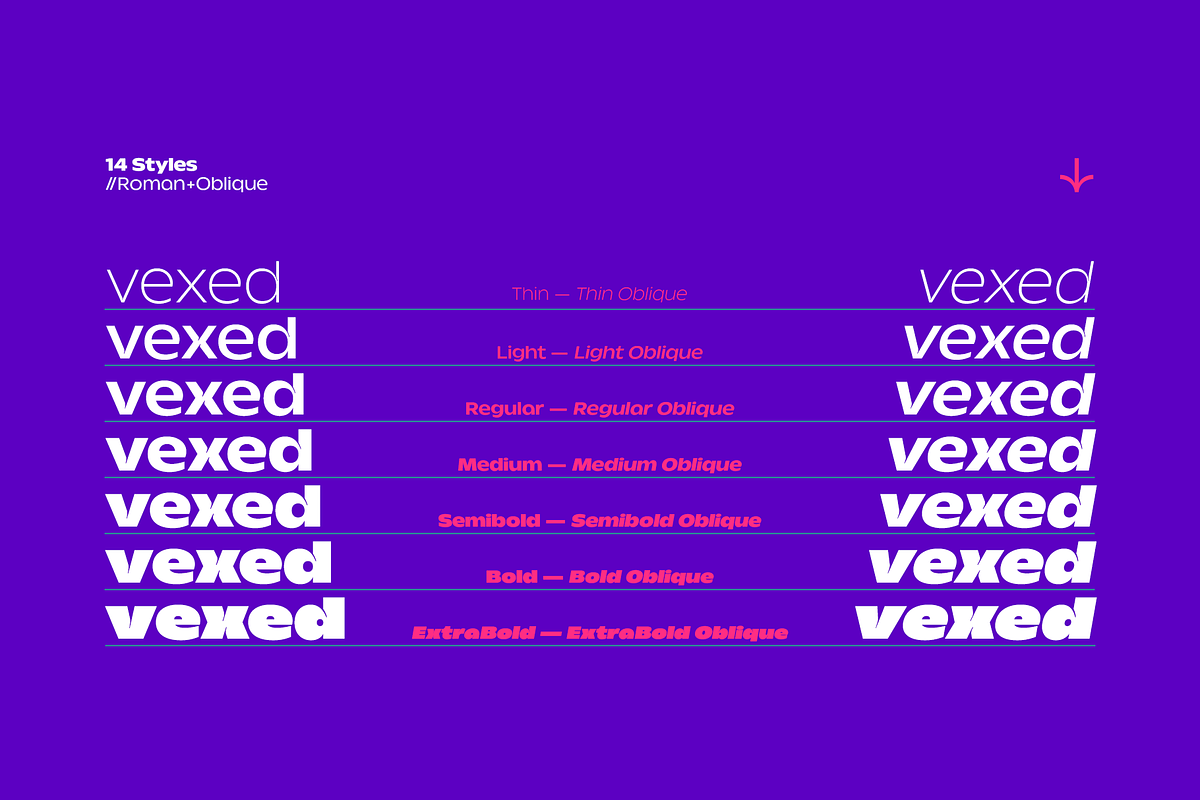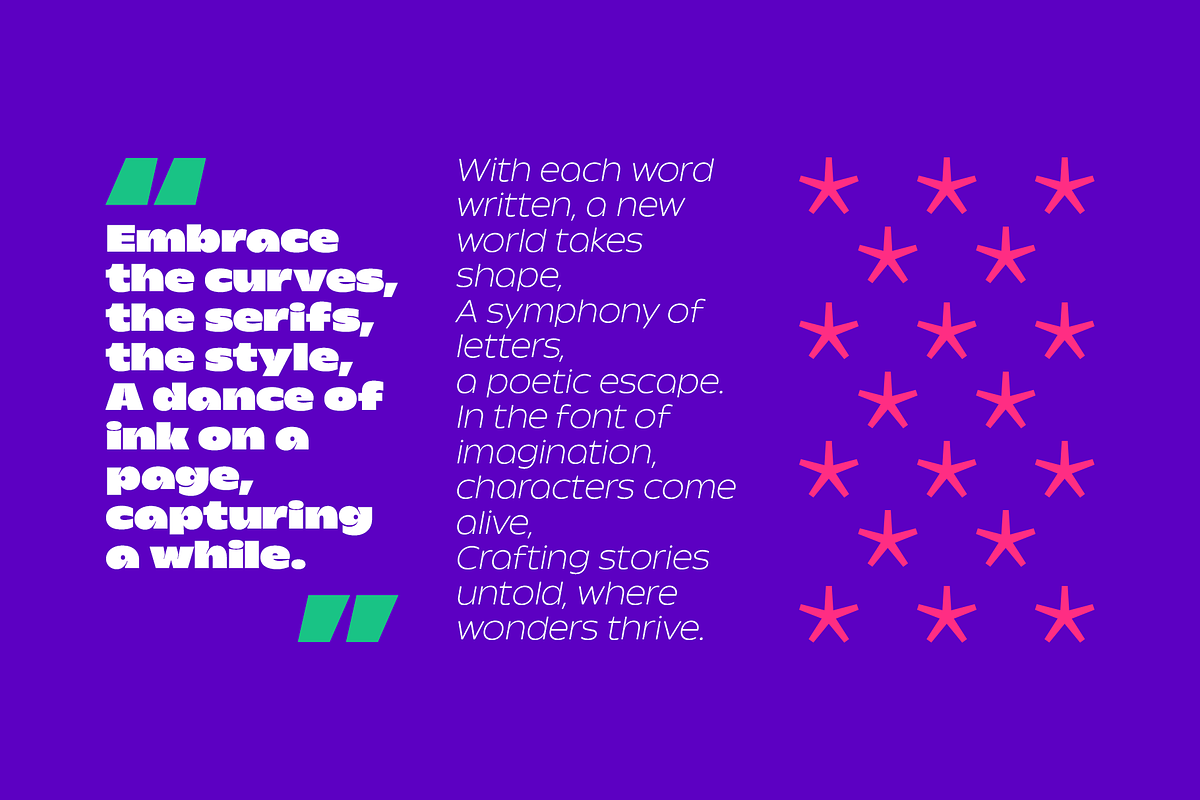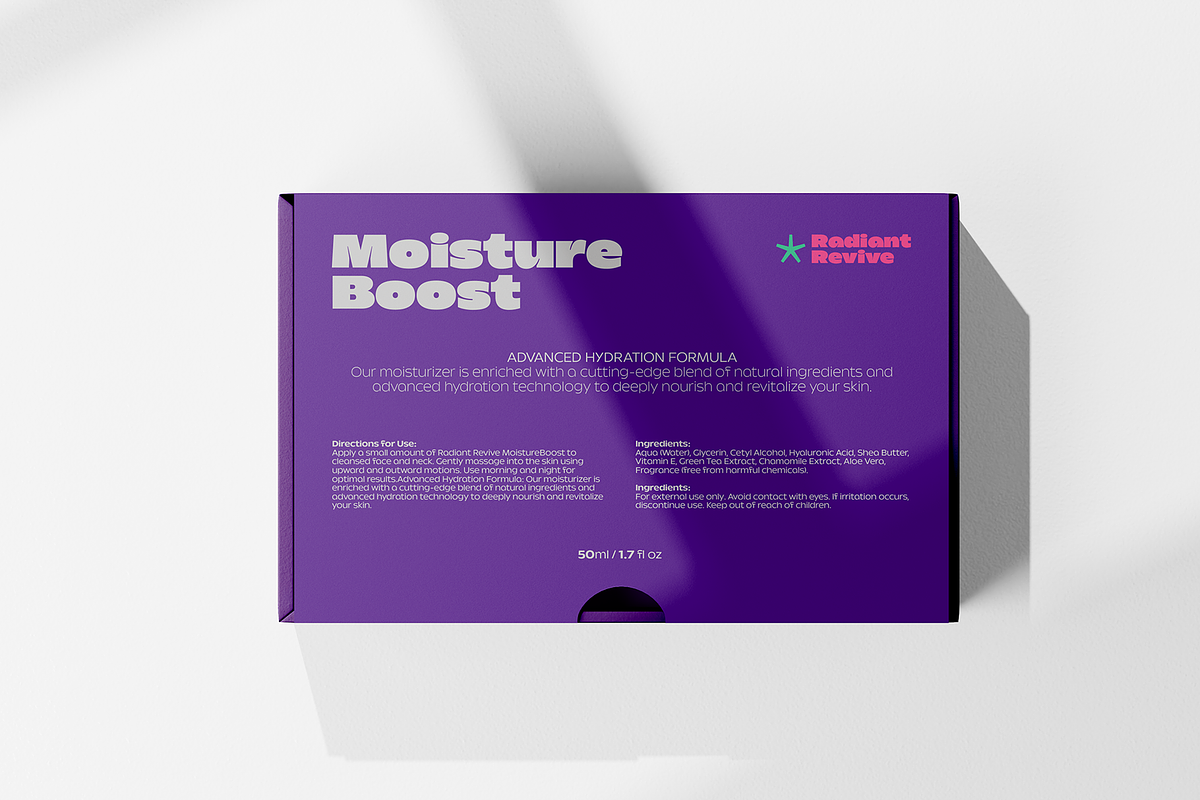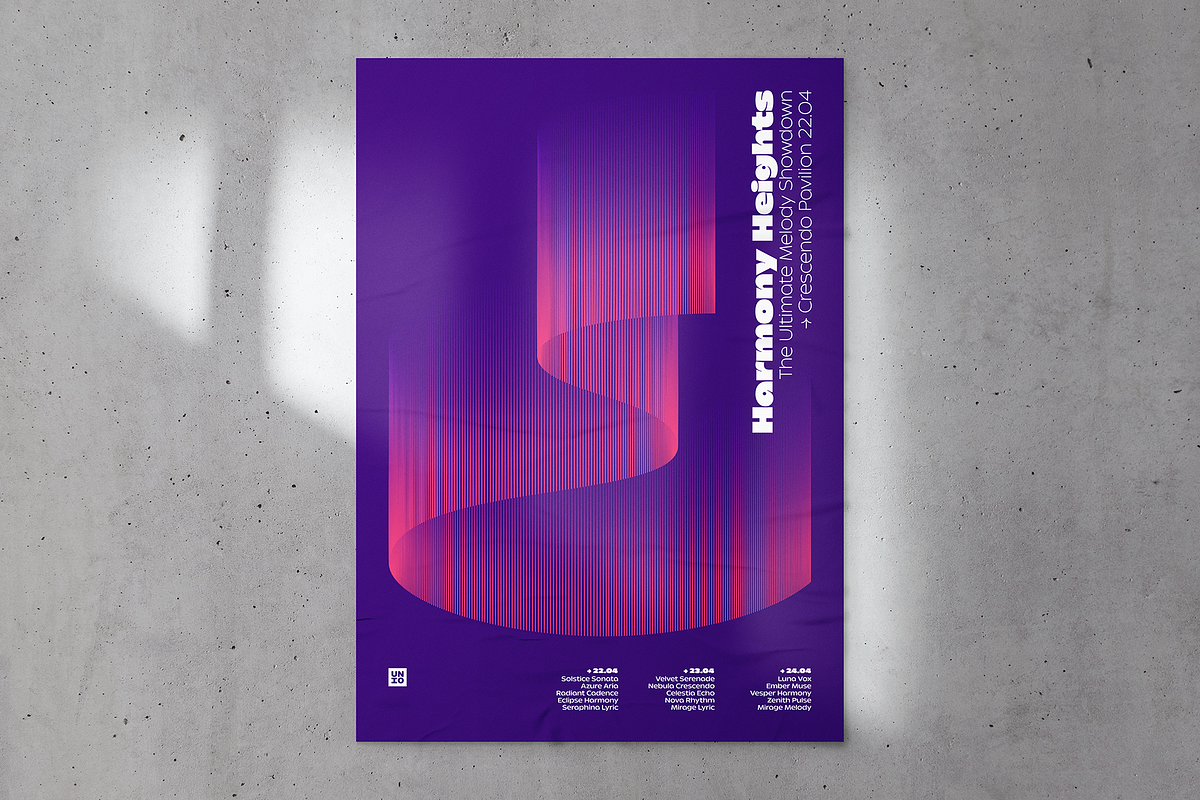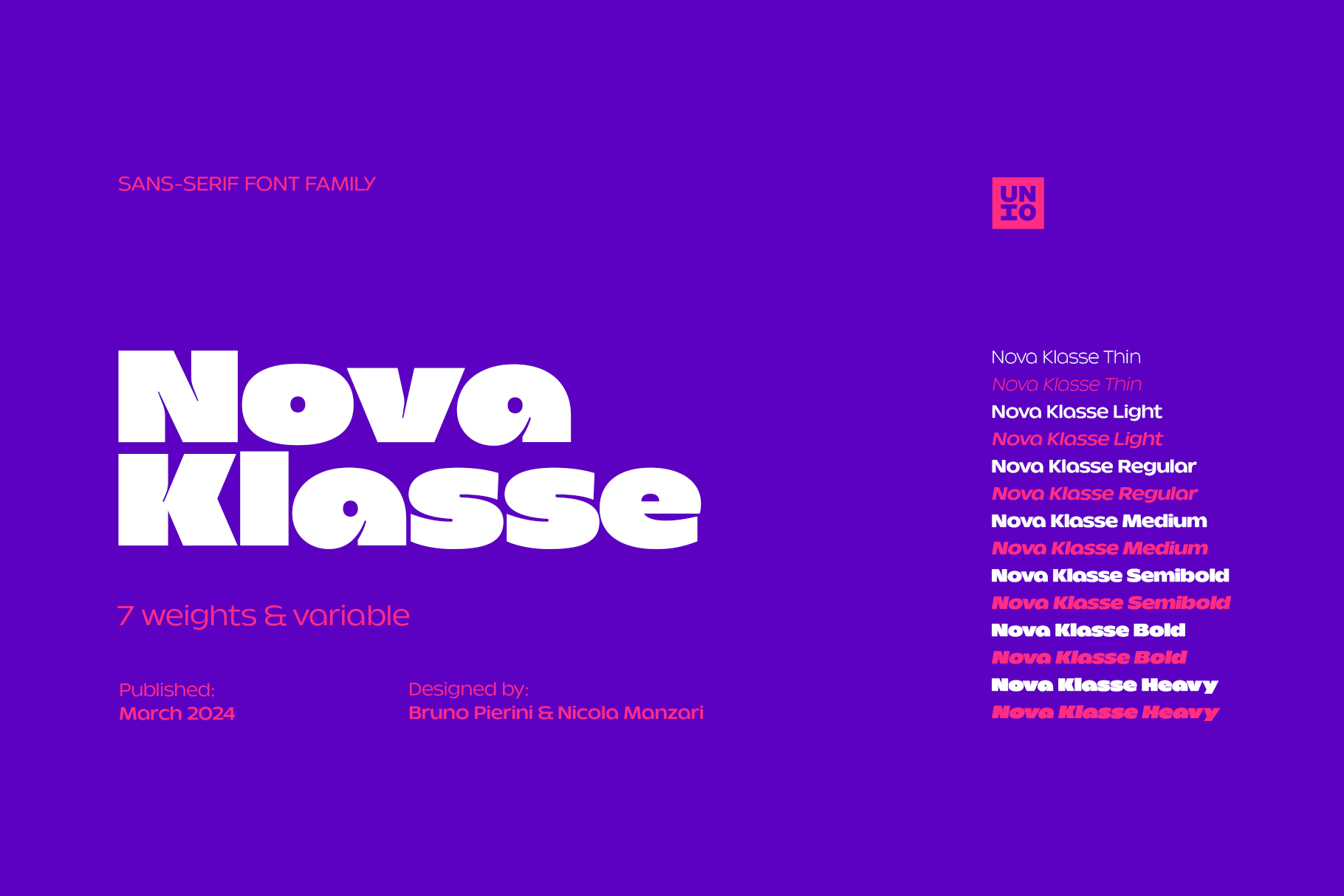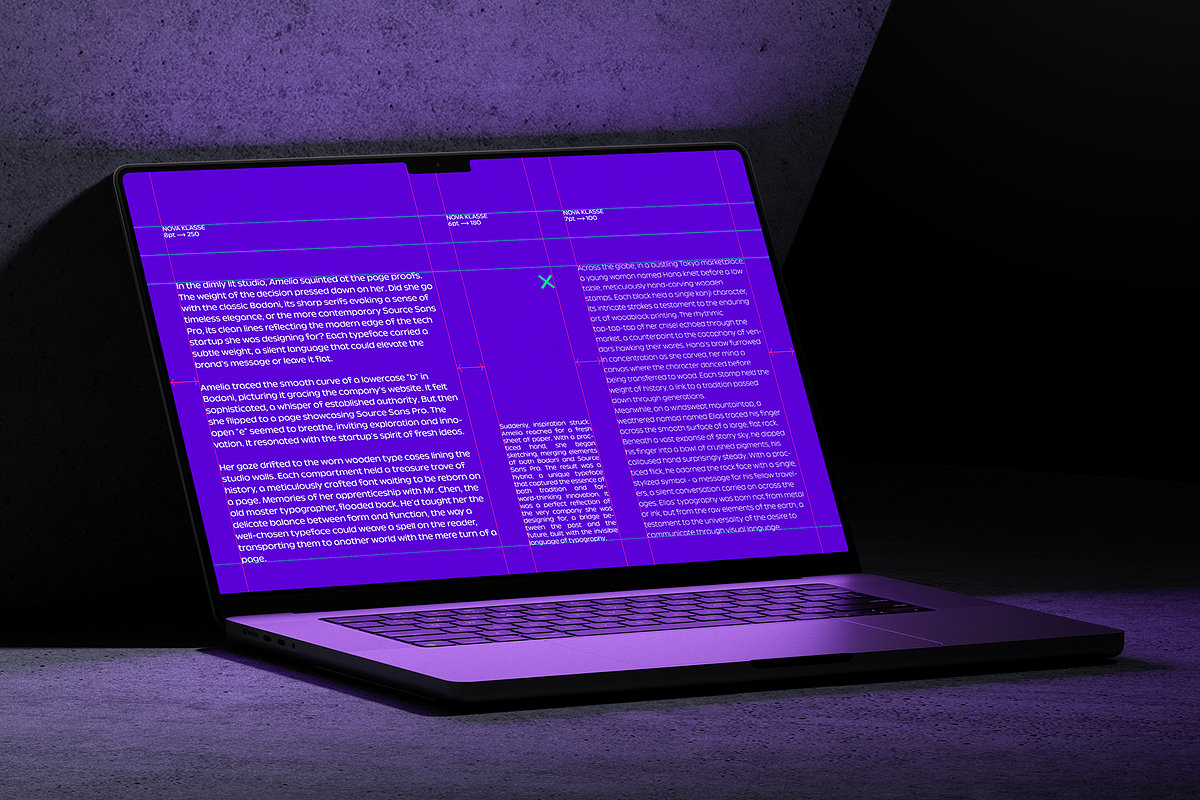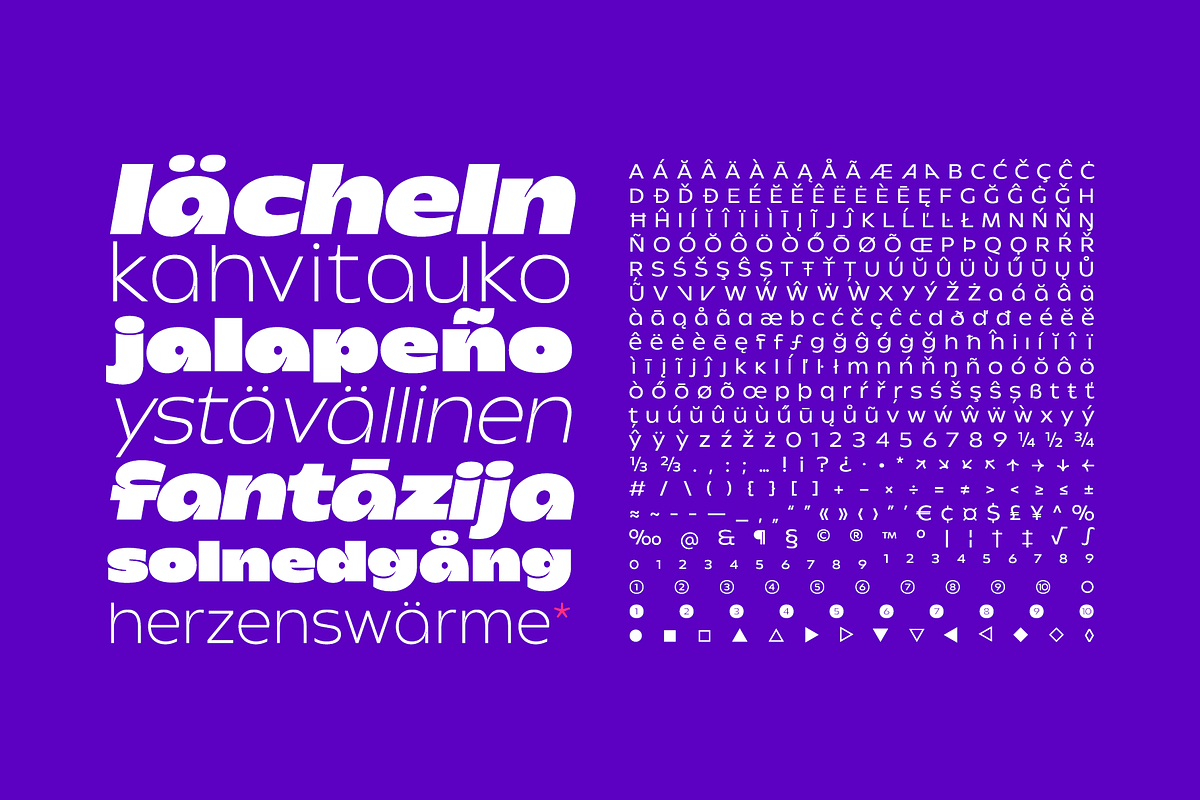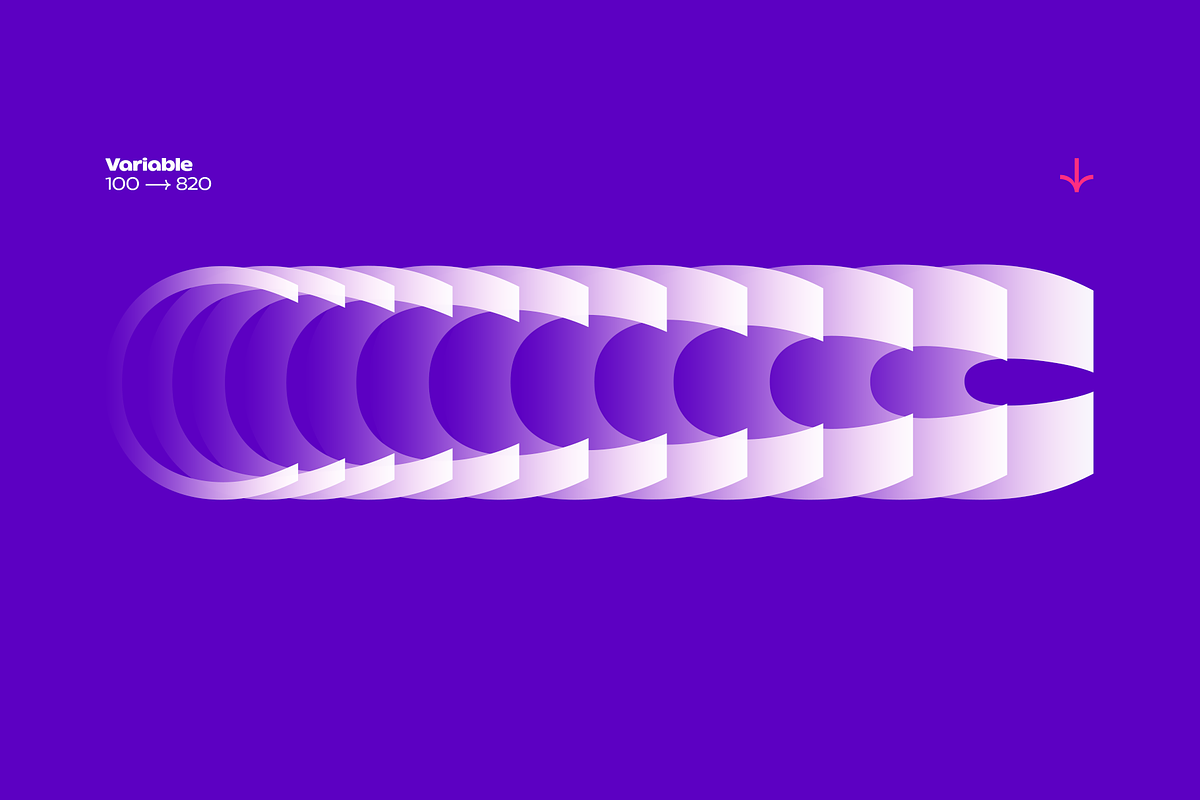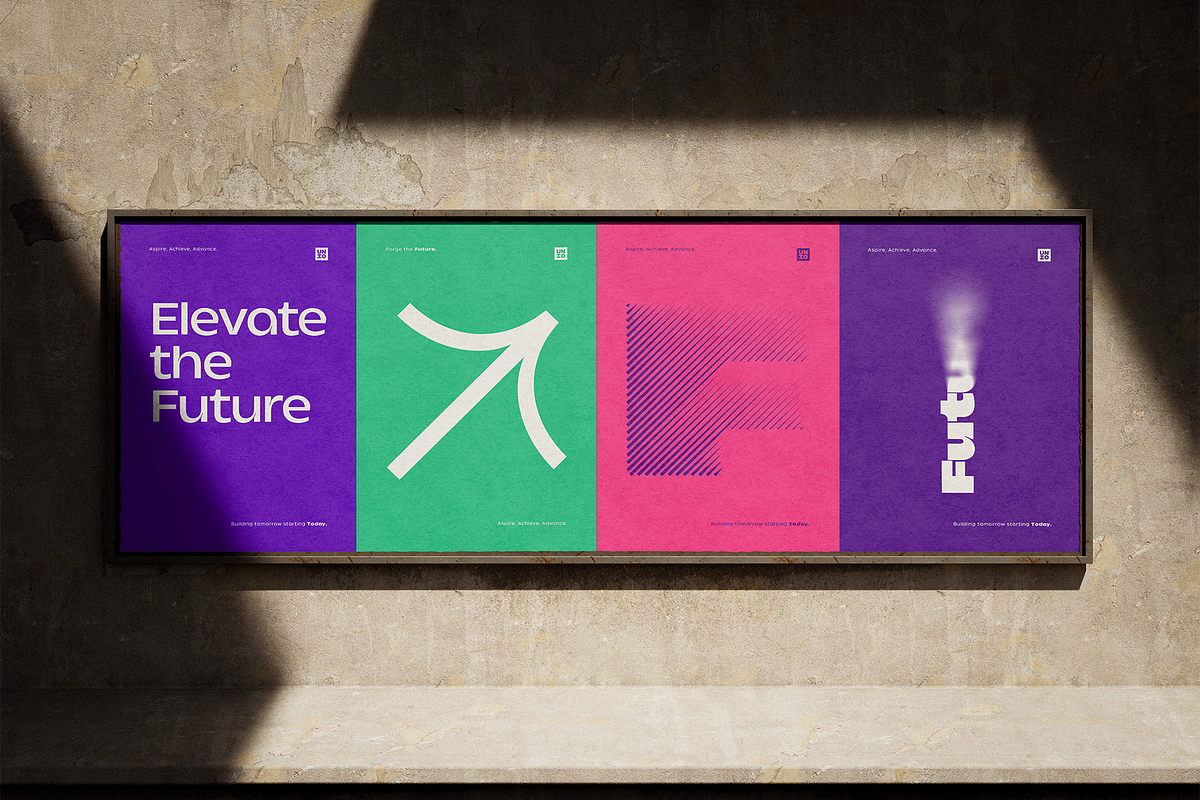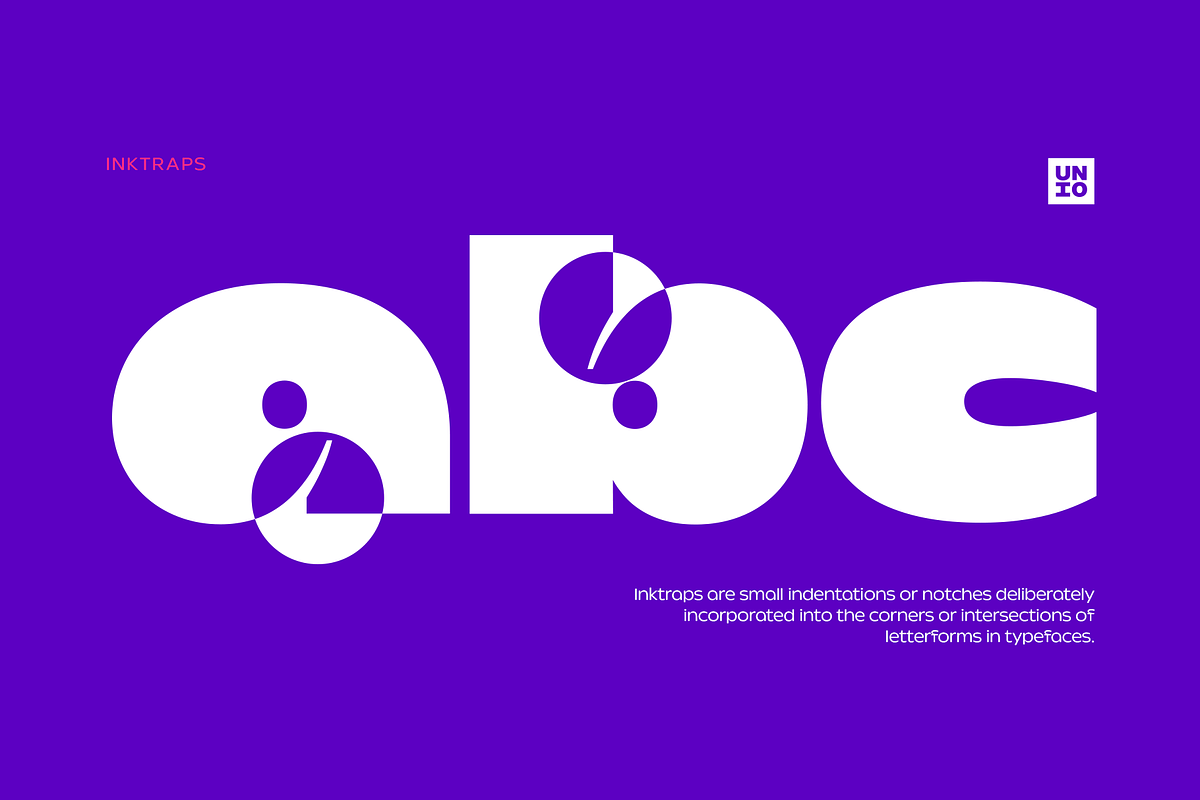
Nova Klasse - Variable Font Family
Nova Klasse, a modern geometric sans serif, bursts with personality. It combines circular and rectangular forms for a unique look, while organic drawing and unconventional details add warmth and character. This playful spirit rests on a foundation of design principles – emphasizing form, space, and viewer interaction, a key element in modern design.
Effortlessly Versatile with a Powerful Variable Font
Nova Klasse empowers design personalisation with ease, catering to a wide range of projects. Need bold branding headlines or clear website copy? Nova Klasse delivers exceptional versatility. The heart of this flexibility is the innovative one 2-axes variable font. This tool grants ultimate control over weight, offering a smooth spectrum between Thin and Extrabold. Forget pre-set options – achieve any level of boldness or subtlety to perfectly match your style. Nova Klasse further enhances customization with a comprehensive set of OpenType features, enabling even more nuanced personalization for a truly unique design experience.
Pushing the Boundaries of Design
The challenge with Nova Klasse was envisioning its potential beyond initial extra bold titling styles. This push for versatility resulted in a typeface that excels in both bold statements and subtle nuances.
Makes a Statement, Reads with Ease, Prints Beautifully
Nova Klasse excels in both digital and print applications. Its bold styles make a statement on headlines and logos, while the text weights ensure readability for websites and dense copy. Plus, strategic ink traps prevent ink build-up during printing, guaranteeing clean, crisp reproduction on any medium.
• 7 weights with matching obliques
• Multi-language support (Central, Eastern, Western European languages)
• OpenType Features (Superscript and Subscript Numerals, Fractions, Alternates)